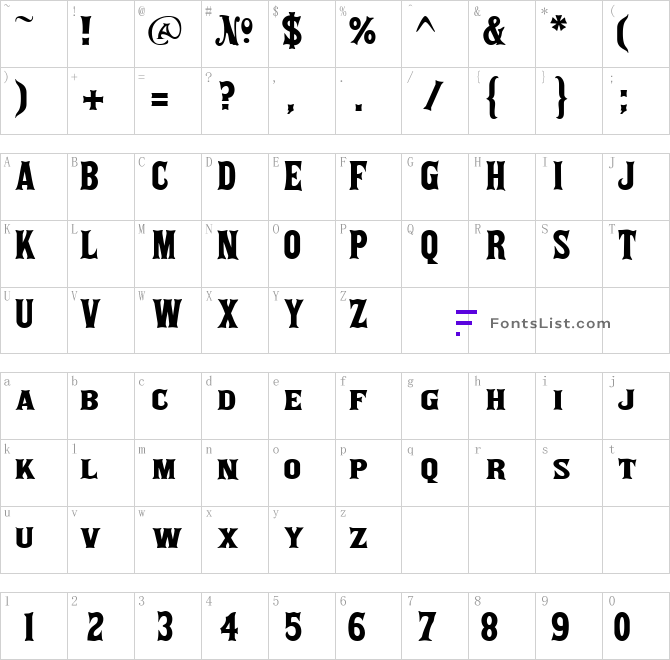
- Font Name:akaPosse
akaPosse.ttf is a very beautiful artistic font, akaPosse.ttf is widely used in the design and printing of various books and pictures,akaPosse.ttf has a strong visual impact,akaPosse.ttf is a commonly used font in newspapers, magazines and books, and is used in posters, e-commerce Poster design, store design, logo design, font design and other fields.akaPosse.